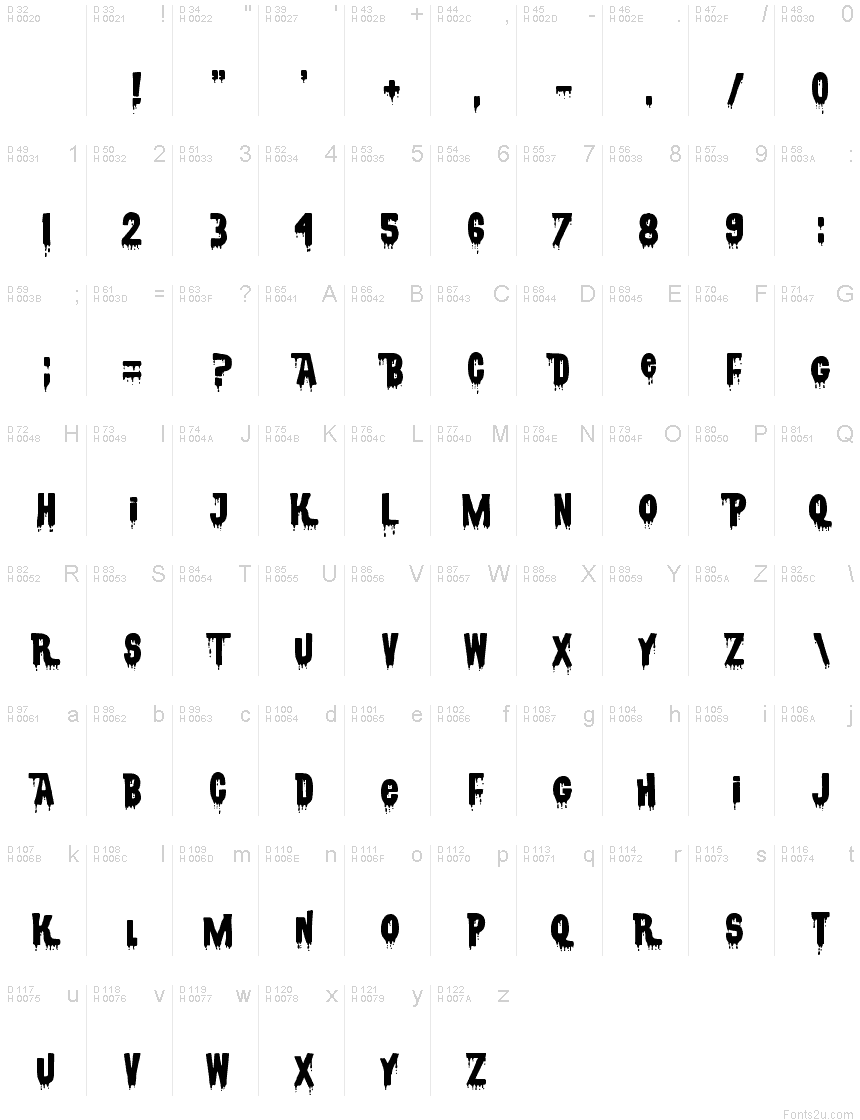
CSNPWDT NFI
Csnpwdt nfi font by Thomas W. Otto is a free scary display typeface that looks like it’s soaked in thick, dripping ink. Each letter feels swollen and heavy, with ragged edges and gooey trails that hang like fresh paint—or something more sinister—off the baseline. The tight spacing and tall, blocky shapes create a loud, claustrophobic atmosphere that jumps off the page even in a single word.
Using Csnpwdt nfi, you can instantly push horror movie posters, haunted house flyers, escape room branding, and Halloween party invites into full-on splatter territory. This free font also works beautifully on spooky book covers, creepy game titles, and bold social media graphics where you need an instant scare factor. Pair it with a clean, neutral sans serif in small text to keep your layouts readable while Csnpwdt nfi steals the spotlight in big, dripping headlines.